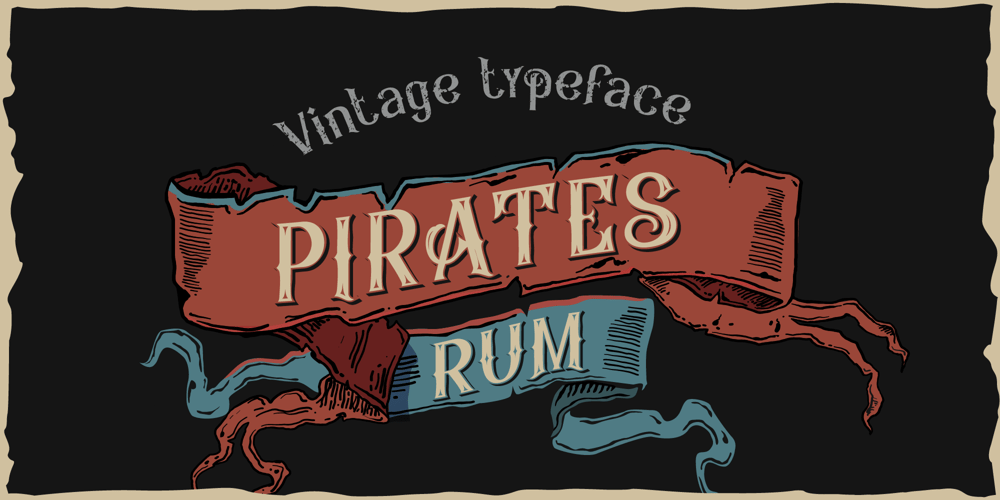
Pirates Rum
Pirates Rum font
Pirates Rum Font Family was designed by Evgeny Dneprovsky and published by Fractal Font Factory. Pirates Rum contains 4 styles and family package options. Hi! Introducing a vintage layered typeface set named “Pirates Rum”.This is an experiment of combining pirate motives with a touch of Gothic.It is a multi-layered decorative font containing a base layer, a layer with internal decorative elements, a layer with a shadow, and a separate aged font.It contains basic uppercase and lowercase glyphs, punctuation, numbers as well as multilingual characters for all kinds of layers.Pirates font, great for labels, logos, headers, and illustrations.Thank you & have a great day!